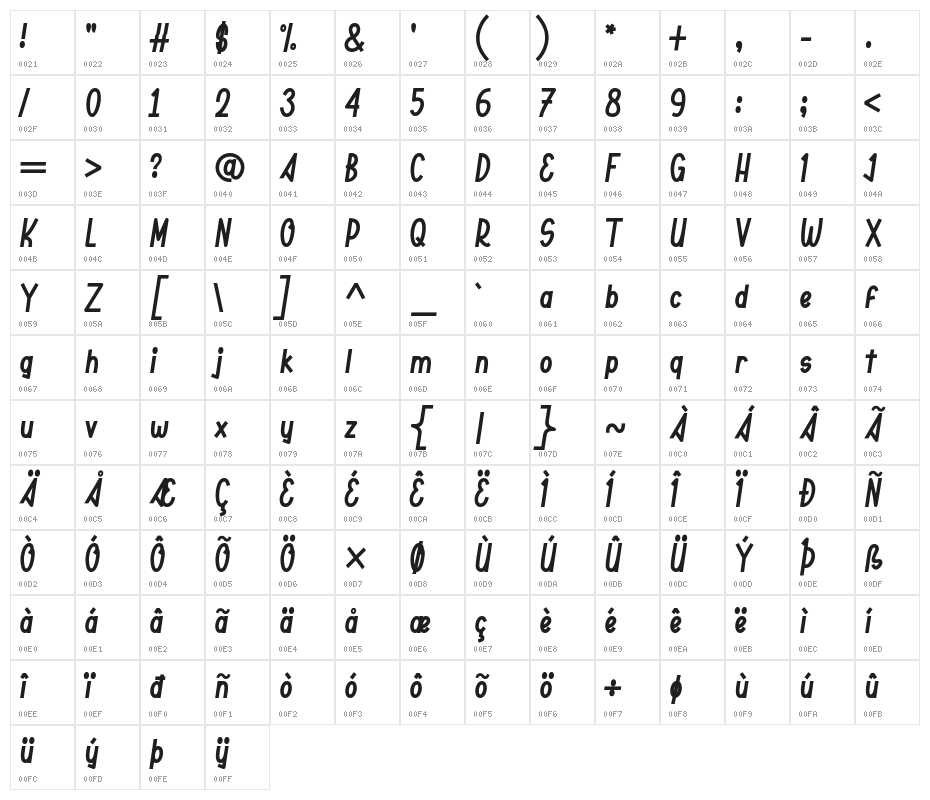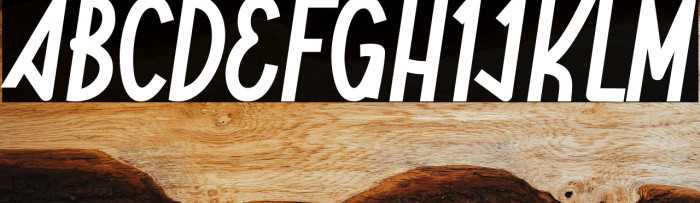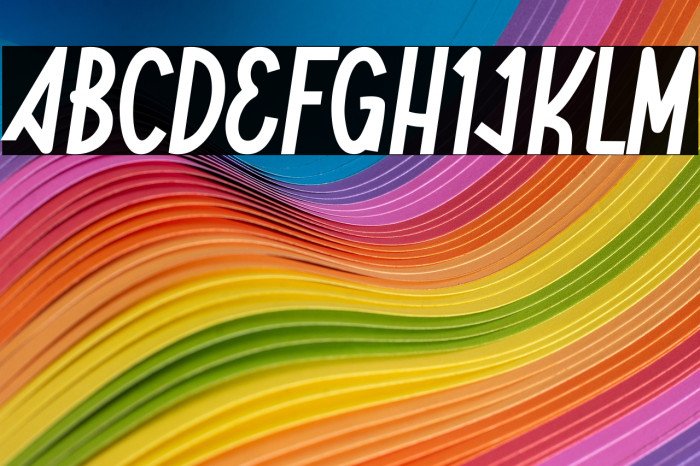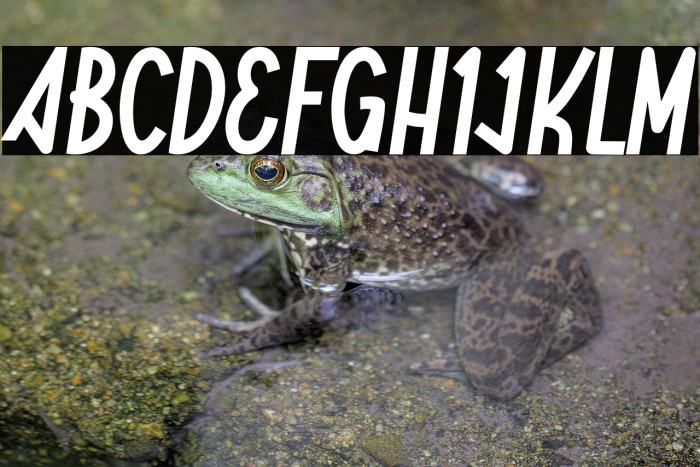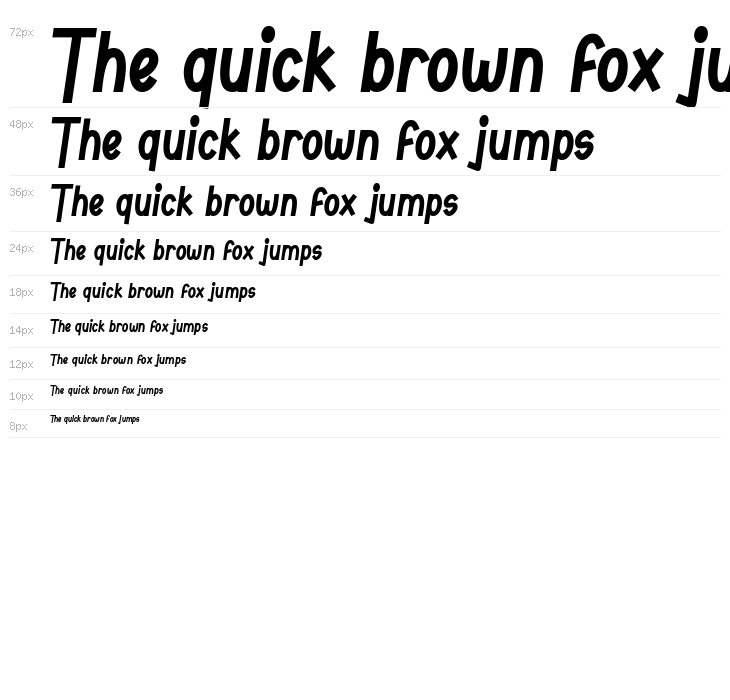
Boosent Font
Boosent Description
This font exhibits a dynamic and energetic style, characterized by its slanted, italicized form that gives a sense of motion and fluidity. The letters are bold and slightly condensed, with a playful yet assertive appearance. The strokes are consistent in weight, providing a uniform look across all characters. The uppercase letters are tall and commanding, while the lowercase letters maintain a friendly and approachable demeanor. The numerals are clear and distinct, ensuring readability. Special characters are well-integrated, maintaining the overall aesthetic of the font. This font is suitable for projects that require a lively and engaging typeface.
| Proposed Projects | Ideal for branding, advertising, posters, and any design needing a lively and engaging typeface. |